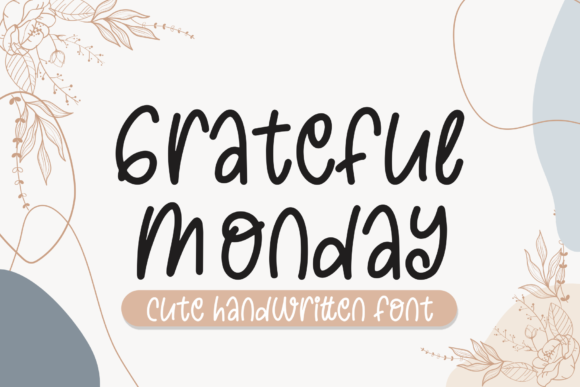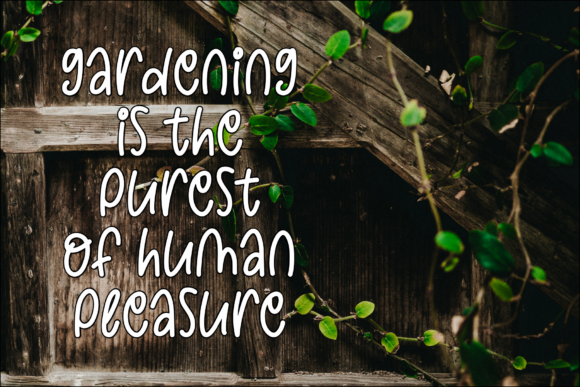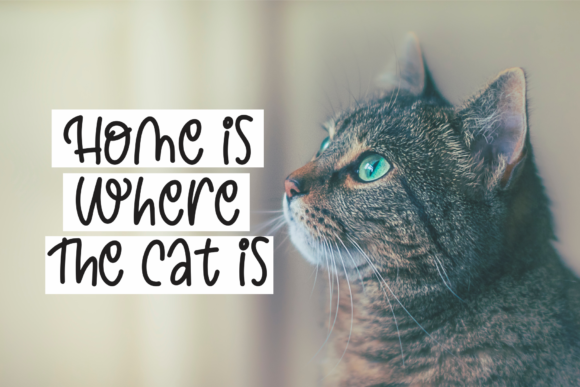
About Grateful Monday Font
Grateful Monday is a cute and quirky handwritten font with an incredible touch in each character. IIt has many alternates and ligatures that will add a beautiful impression of your designs.